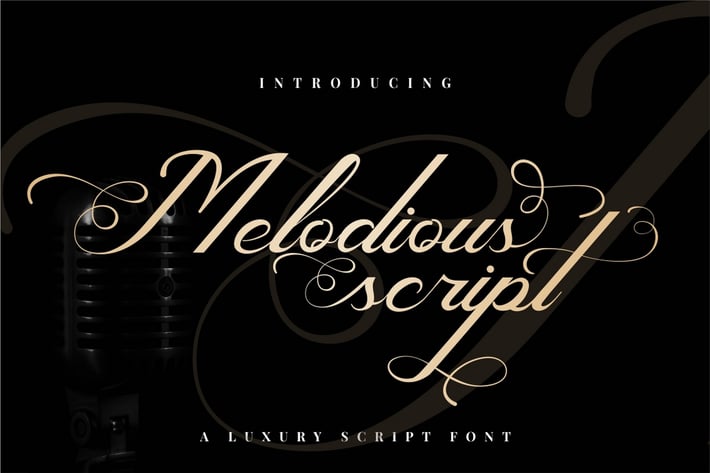
Melodious - Luxury Script Font
Melodious Script
Introducing a calligraphy script font called " Melodious Script ", a classic and beautiful decorative script font with a modern touch.
Melodious Script is royal,luxury, glamorous and elegant.
Come with open type feature with a lot of alternates, its help you to make great lettering.
Melodious Script best uses for heading,cover, invitation, label, poster, logos, quotes, product packaging, header, merchandise, social media & greeting cards and many more.
This font is also support multi language.
Comes with feature :
Alternate
Number, Punctuation And Symbols
Multilanguage Support.